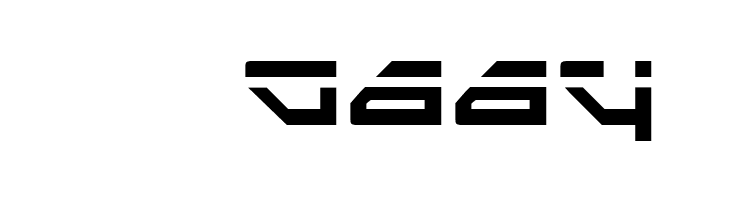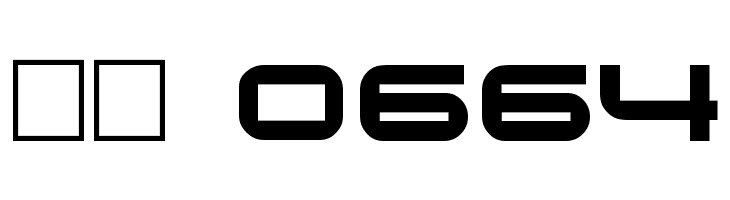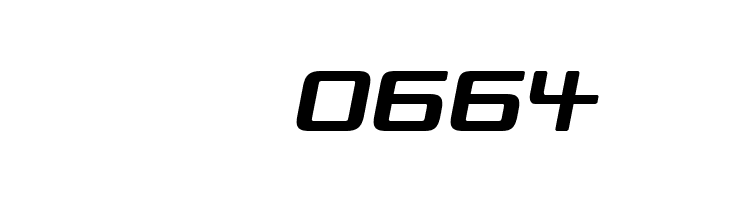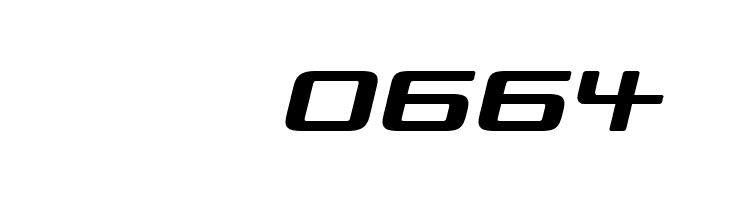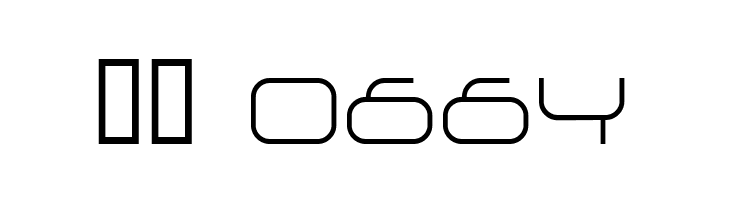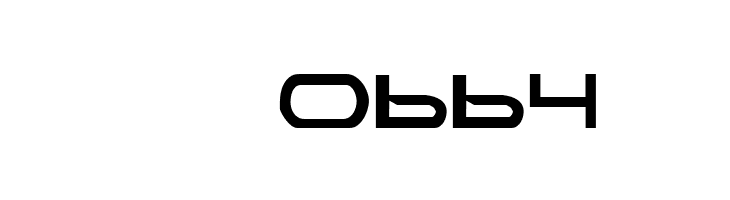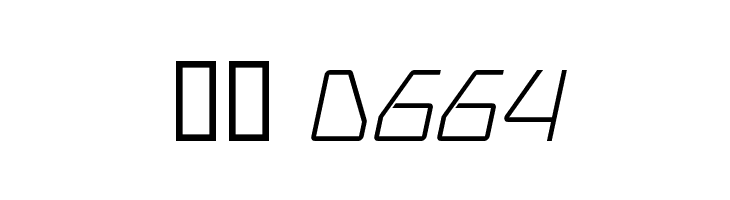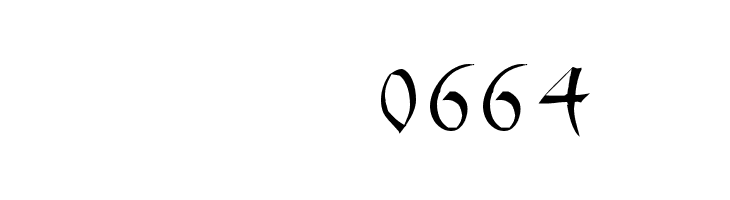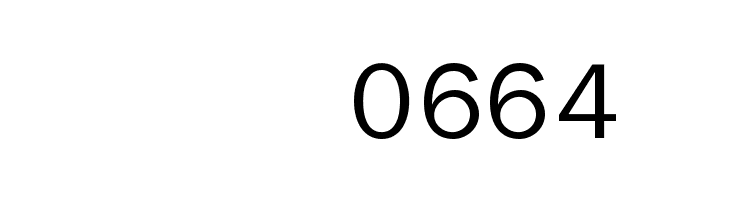
A futuristic, geometric font with sharp angles and a digital aesthetic.
A modern, italicized font with a futuristic and dynamic style.
A modern, geometric outline font with a tech-inspired design.
A modern, cube-inspired font with bold, geometric characters.
A modern, cube-structured font with a bold, geometric, and three-dimensional design.
A futuristic, geometric font with angular and edgy design elements.
A geometric, angular font with a futuristic, digital appearance.
A bold, geometric font with a futuristic and modern design.
A futuristic, triple-line font with a modern and dimensional design.
A modern, geometric font with a futuristic and precise design.
A modern, geometric italic font with a dynamic and futuristic style.
A modern, italicized font with expanded, geometric shapes and clean lines.
A futuristic, minimalist font with thin, geometric lines and a sleek design.
A sleek, futuristic font with geometric elements and clean lines.
A sleek, futuristic italic font with geometric lines and a modern aesthetic.
A futuristic, geometric font with wide, expanded characters and sharp angles.
A modern, geometric font with a sleek, futuristic design.
An ornate, medieval-inspired font with decorative curves and elegant serifs.
A decorative font inspired by traditional Gaelic script with bold, angular forms.
A bold, adventurous font with sharp serifs and a distressed appearance, perfect for pirate-themed projects.
A clean, modern sans-serif typeface with balanced proportions and consistent stroke widths.
A tall, narrow font with tight spacing and uniform stroke width.
A maritime-themed decorative dingbat font with pirate ships and nautical icons.
A bold, dynamic display font inspired by comic book sound effects.